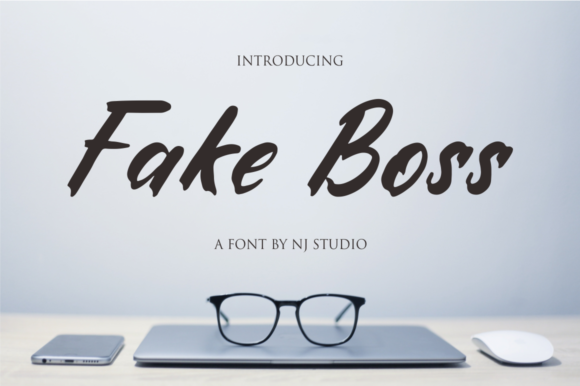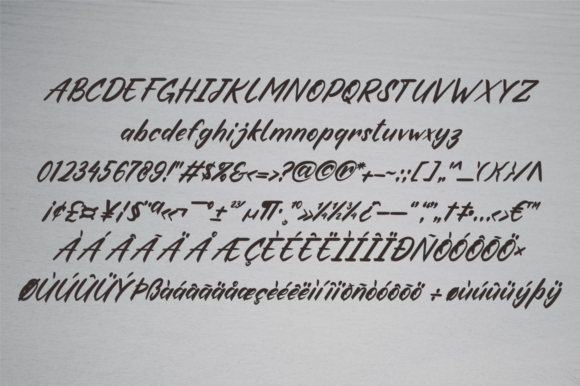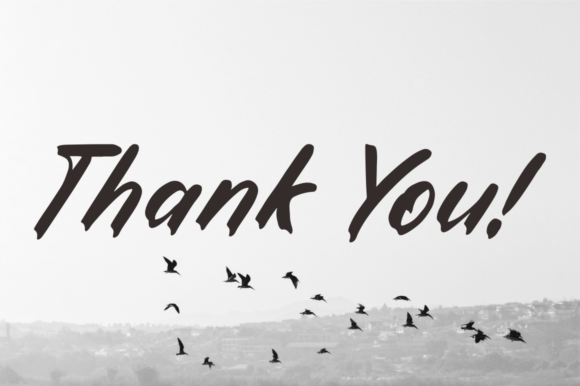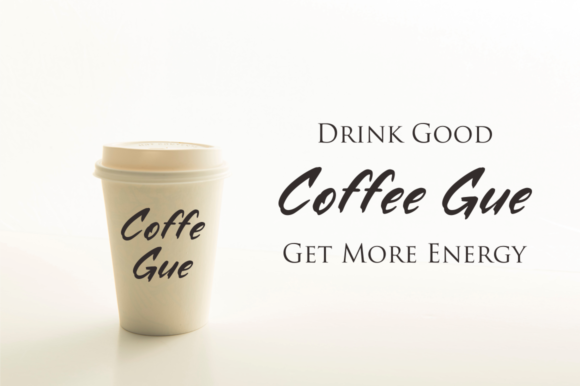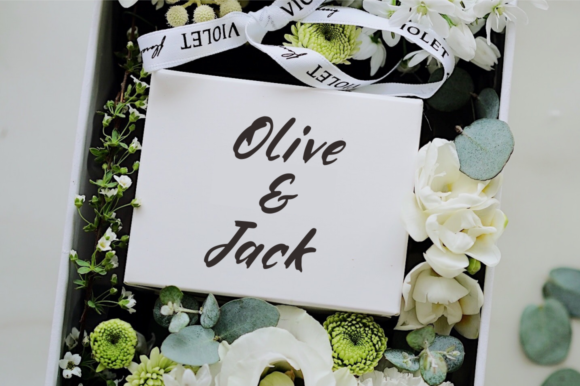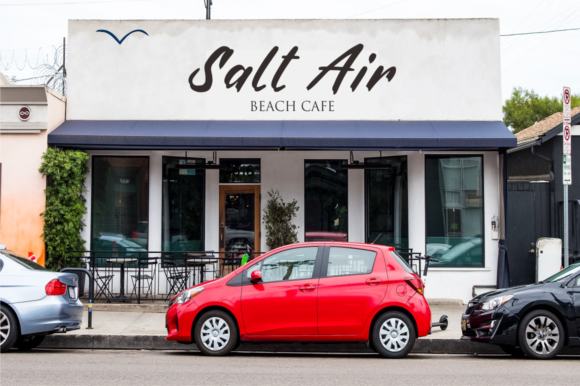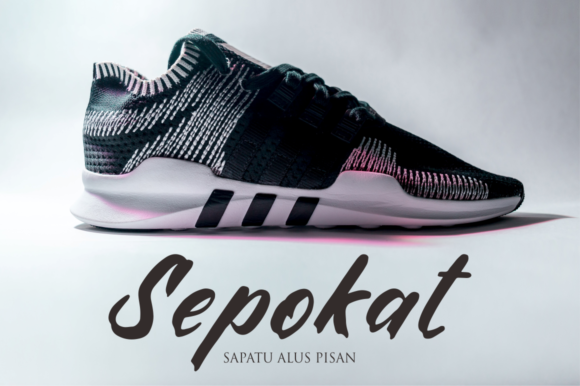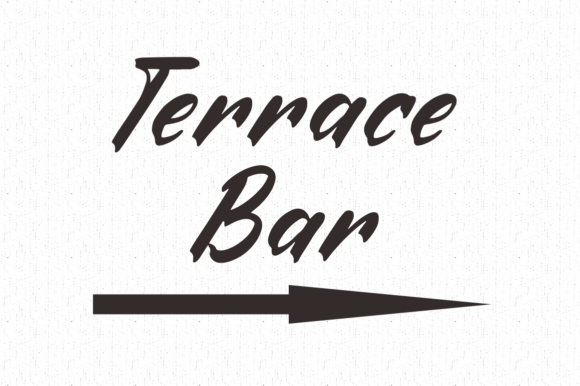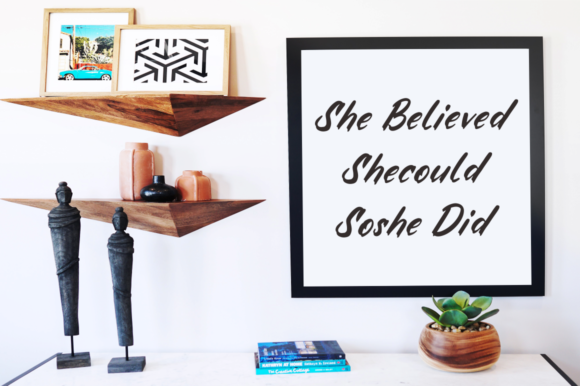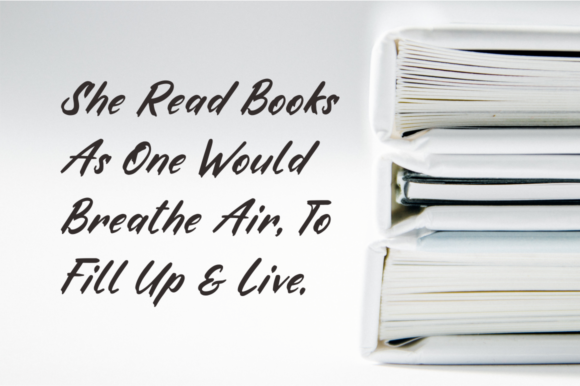
Fake Boss Font
About Fake Boss Font
Fake Boss is a modern and gorgeous handwritten font with a cute twist. Use it to add a playful and authentic feel to any design project!